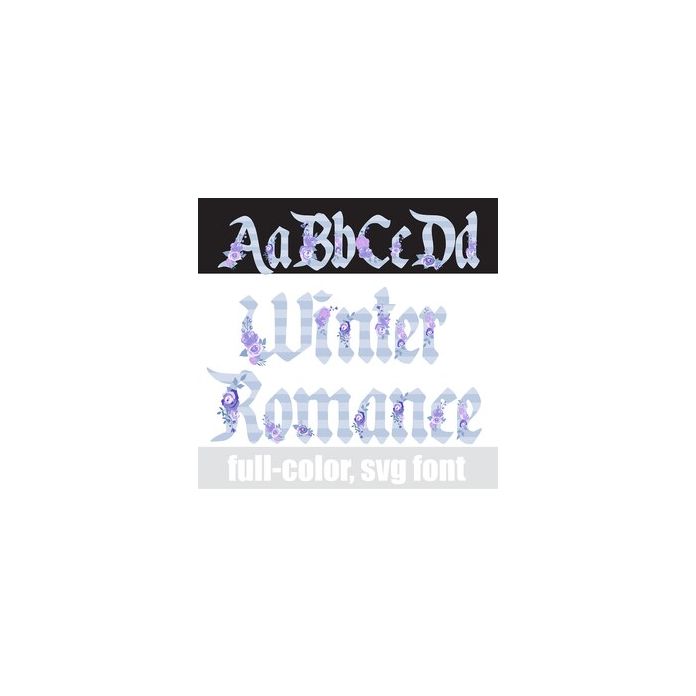
This full-color font features winter florals on an icy cold uppercase. The lowercase is without florals. There is an alt case w/ additional colors you can access through your system or Silhouette's glyph map.